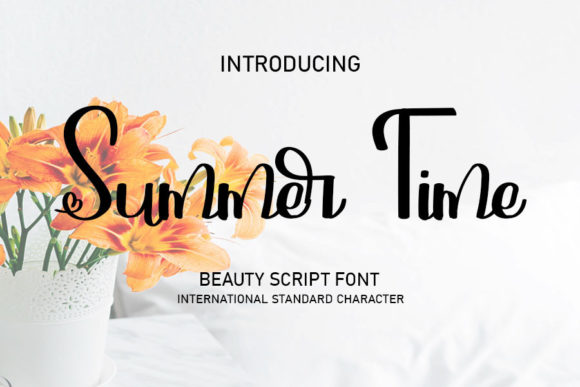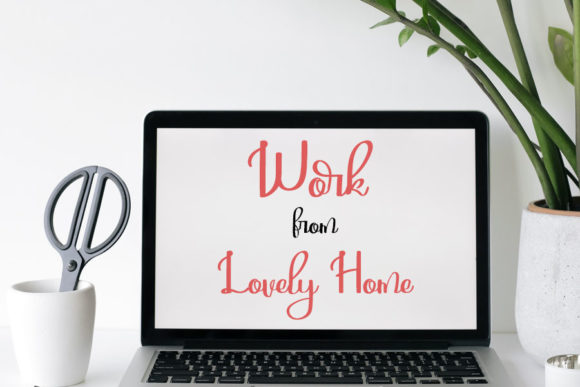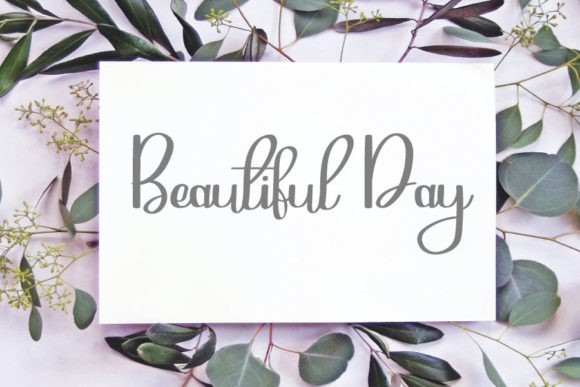
About Summer Time Font
Summer Time is a chic and quirky script font that adds a touch of whimsy to your designs. With its unique and asymmetrical letterforms, this font is sure to stand out and bring a playful vibe to your projects.
The charm of Summer Time lies in its cute and stylish appearance. The letterforms have a hand-drawn quality with a touch of irregularity, giving them a playful and relaxed feel. The font’s quirky nature makes it perfect for designs that require a fun and lighthearted touch, such as greeting cards, invitations, posters, and social media graphics.
The versatility of Summer Time allows it to be used in various contexts. Its chic and stylish appearance makes it suitable for fashion branding, product packaging, and logo designs. The font’s whimsical nature also makes it a great choice for children’s books, craft projects, and anything that calls for a touch of creativity and imagination.
Adding Summer Time to your projects will instantly brighten them up and give them a unique and eye-catching appeal. Its quirky and cute nature will capture attention and make your designs memorable. Whether you’re creating a logo, designing a poster, or crafting a personalized greeting card, this font will add a touch of charm and personality.
In summary, Summer Time is a chic, cute, and quirky script font that brings a whimsical and playful vibe to your designs. Its unique and irregular letterforms make it a standout choice for various projects, adding a touch of fun and creativity. Give your designs a summery and lighthearted feel by confidently incorporating Summer Time into your projects.